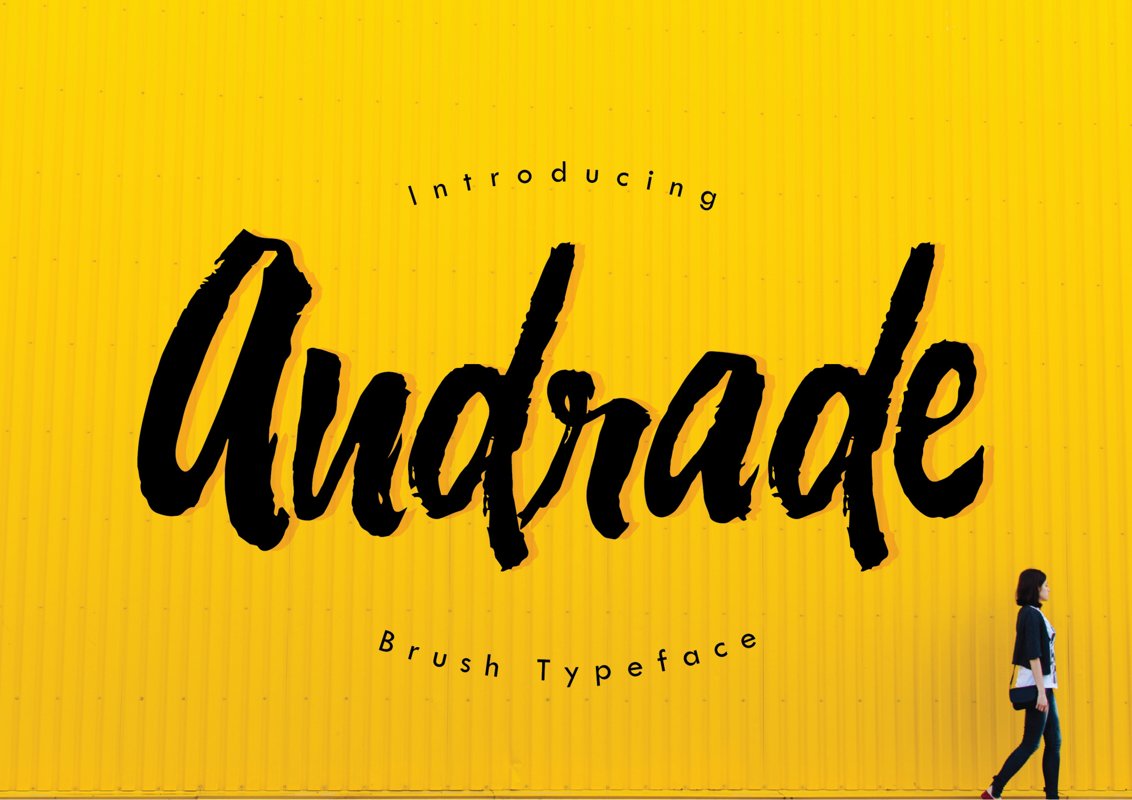
Andrade is a brush typeface inspired by people's handwriting. It's includes upper & lowercase characters, punctuation, numerals, and multilingual support. This playful typeface suitable for title,label, poster, display and any other project.